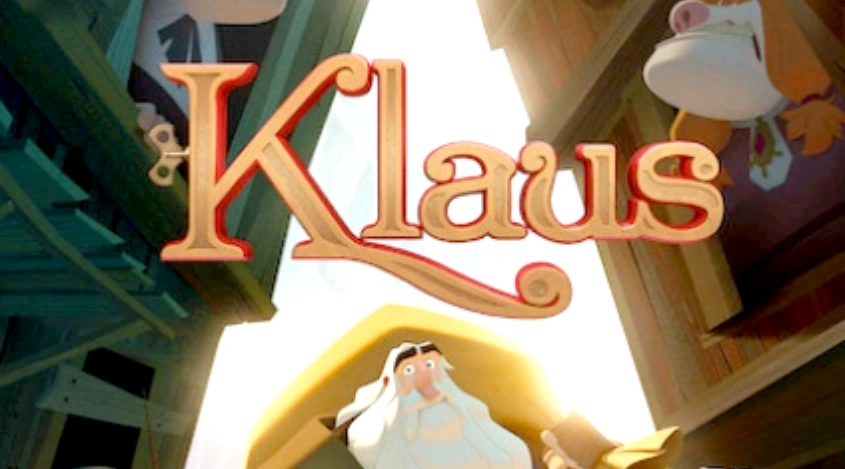
The name “Klaus” gained significant media attention with the release of Netflix’s 2019 animated Christmas film Klaus, but this refers to the character and film title, not a specific font.
Klaus is a traditionally animated Christmas adventure comedy directed by Sergio Pablos (a Disney veteran who worked on The Hunchback of Notre Dame, Hercules, and Tarzan).
Klaus Font
Klaus Fonts
The font used in the movie’s poster is “Oh You Klid NF,” designed by Nick Curtis and published by Nick’s Fonts.
Kartex Font is a fancy type font created by FG Studios that is available for free download and is intended for personal use only. It is a free alternative and fan-made font that looks very similar to the Klaus font.
Same Name Font
We found that two distinct fonts share the Klaus name: MNKY Klaus Th by Mitch Paone (Monkey Type foundry), a professional sans-serif family, and Sweety Klaus Script by Maulana Creative (2021), a casual handwritten font.